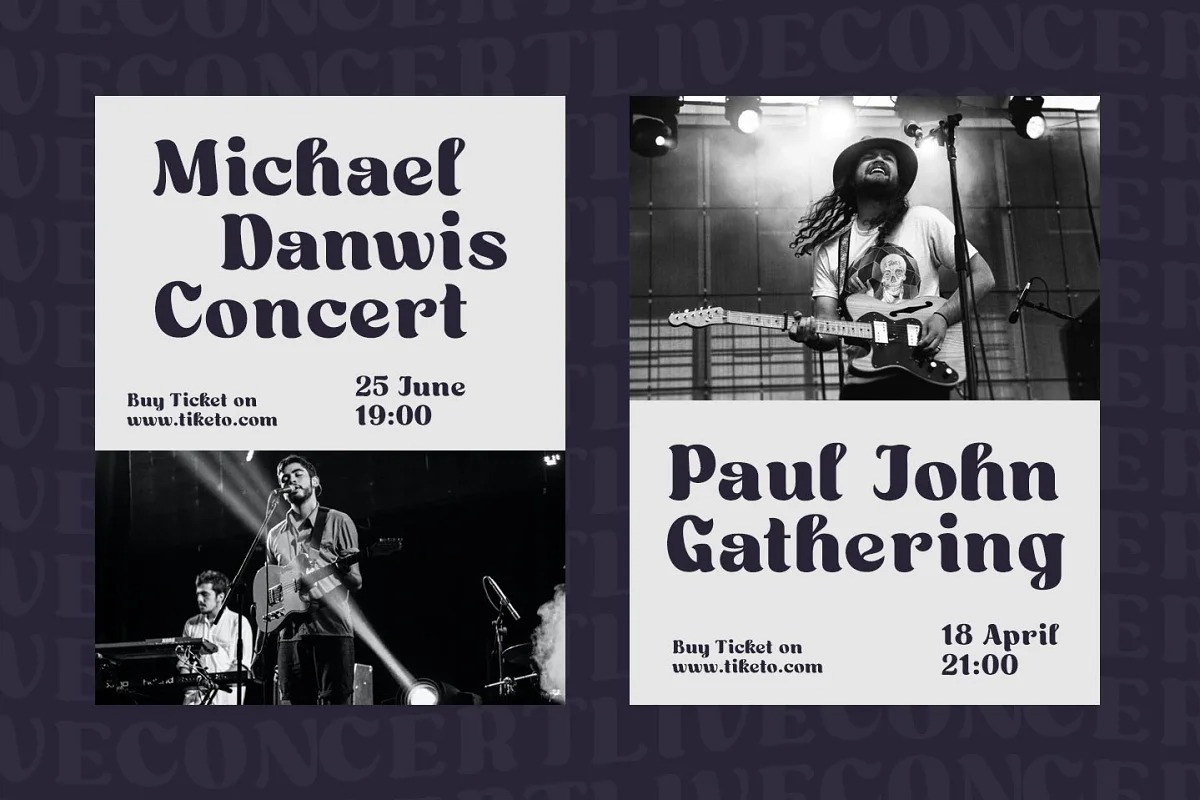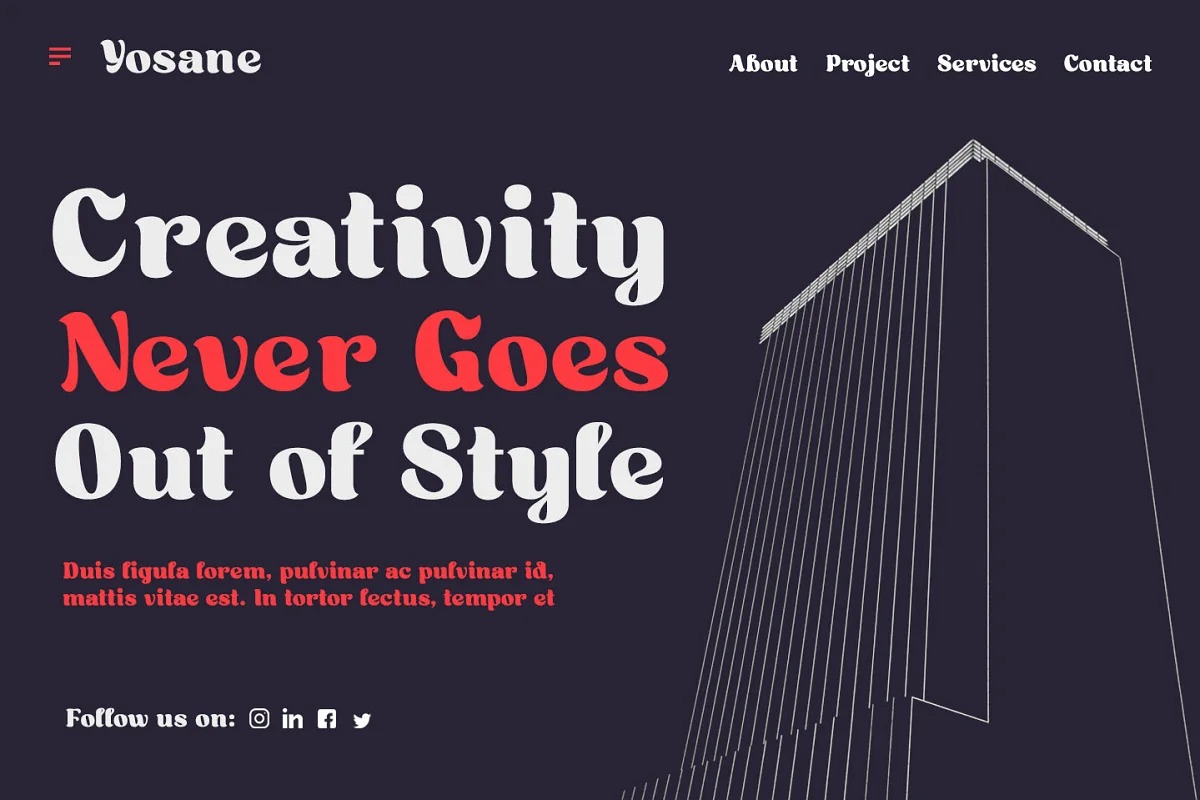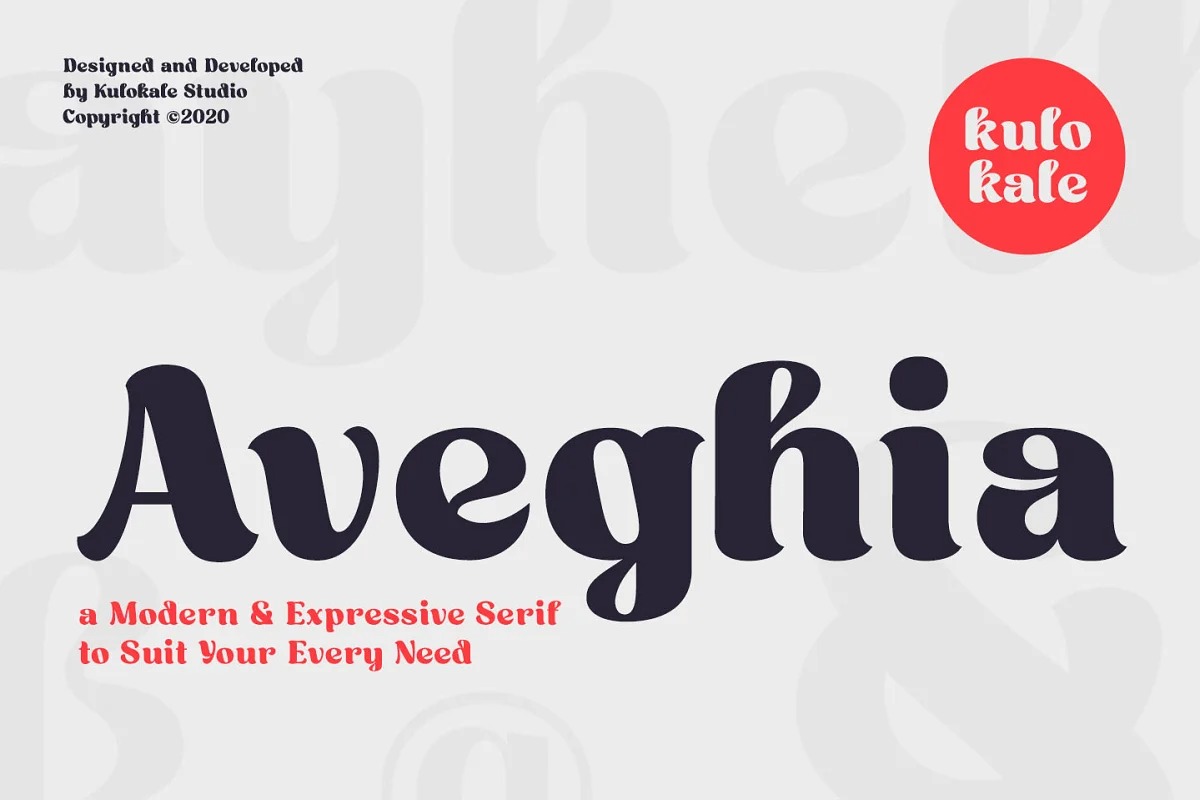
Aveghia Display Font
This is a retro and bold display typeface manufactured by Kulokale. Aveghia is well-suited for advertising, branding, logotypes, packaging, titles, headlines and editorial design.